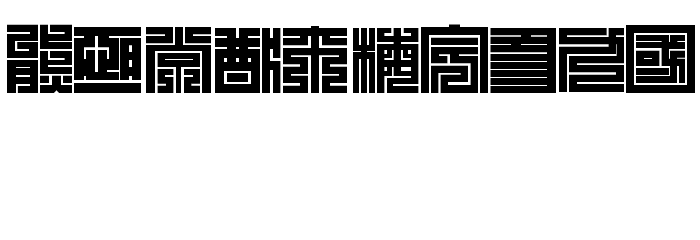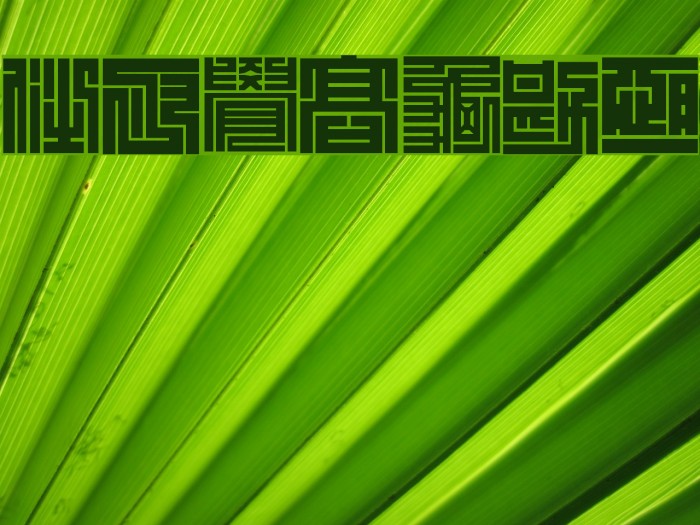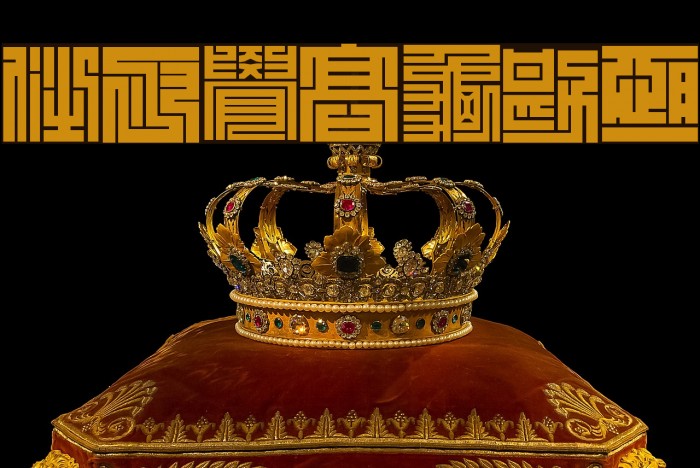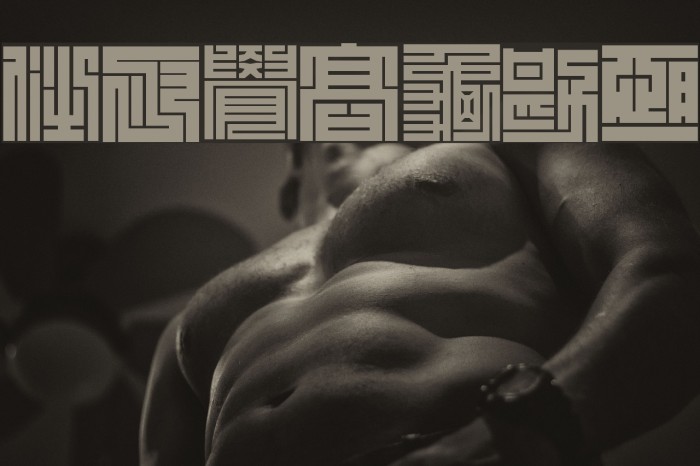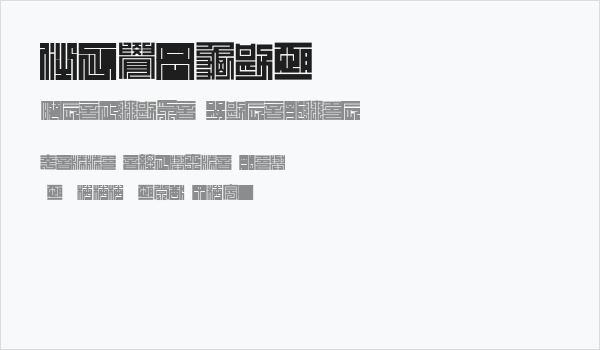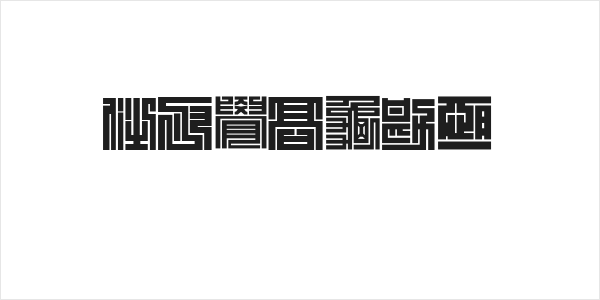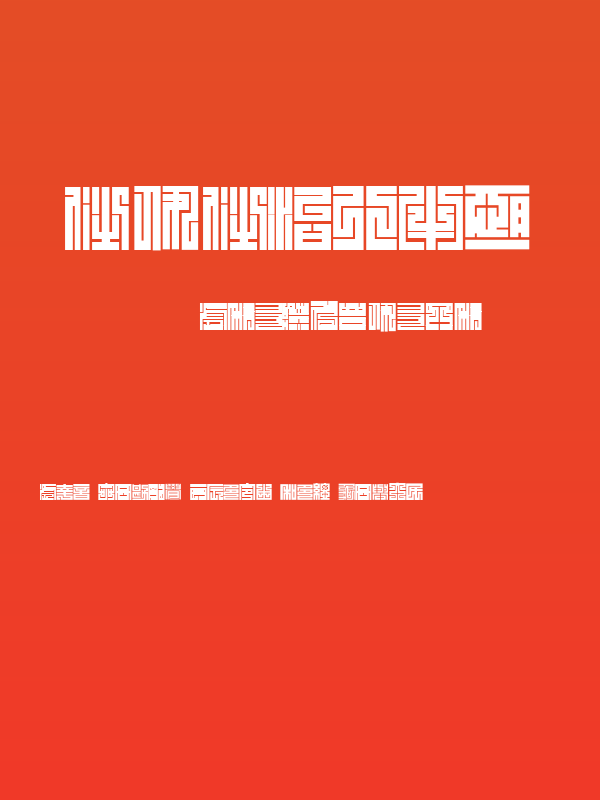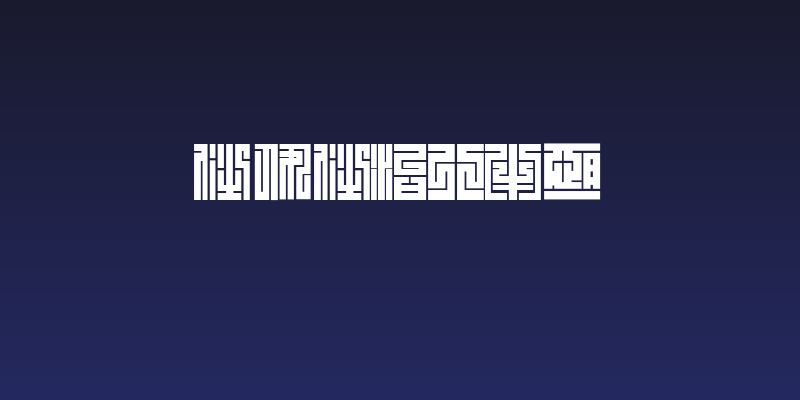
Kakuji1 Font
Kakuji1 Description
This font features a highly decorative and intricate design, characterized by its bold, geometric shapes and maze-like patterns. Each character is composed of thick, interconnected lines that create a sense of complexity and depth. The style is reminiscent of traditional East Asian calligraphy, yet it incorporates a modern twist with its structured, almost architectural appearance. The uniformity in line thickness and the precise alignment of elements within each character give the font a cohesive and harmonious look. This font is visually striking and commands attention, making it suitable for projects that require a strong visual impact.
| Proposed Projects | Ideal for use in branding, poster design, album covers, and any project that requires a distinctive and eye-catching typeface. |